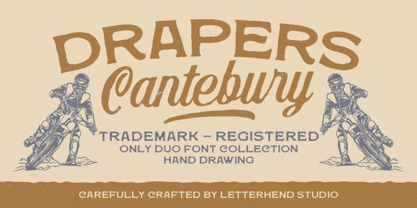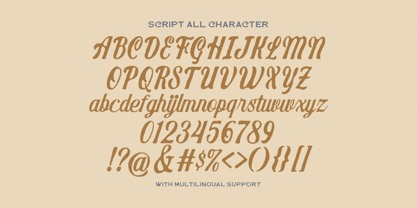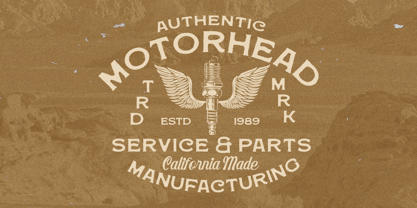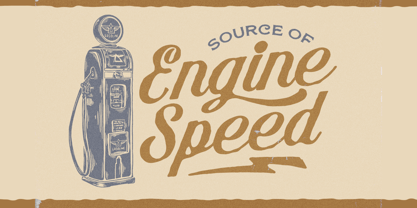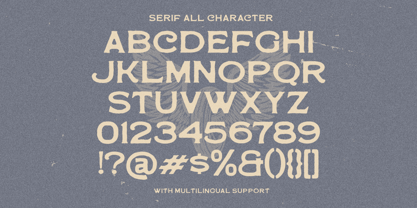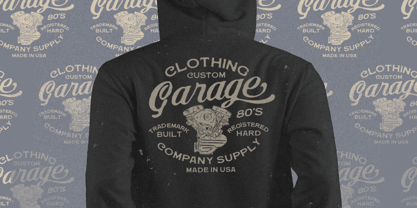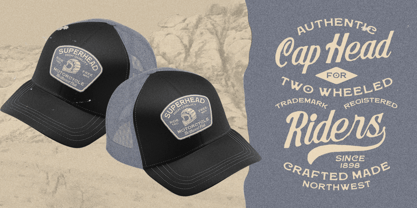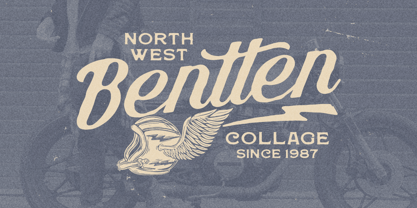
Drapers Cantebury
por Letterhend
La familia tipográfica Drapers Cantebury fue diseñada por Hendry Juanda y publicada por Letterhend. Drapers Cantebury contiene 2 estilos y opciones de paquete familiar. Más información sobre esta familia
Drapers Canterbury is a bold and vintage-inspired duo font collection, carefully crafted to bring a rugged yet elegant touch to your designs. Featuring a mix of strong serif and classic script, this hand-drawn typeface is perfect for branding, logos, apparel, posters, packaging, and more.